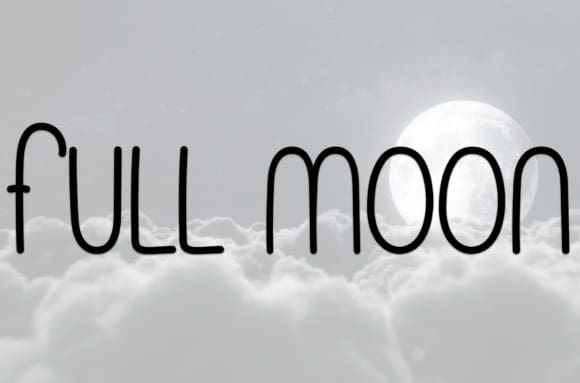
Laughing Happily Font
Laughing Happily Font is a sweet and friendly handwritten font. Cute and fun, this font is ideal for writing wedding invitations, cards, or any other design that might need a fun touch!